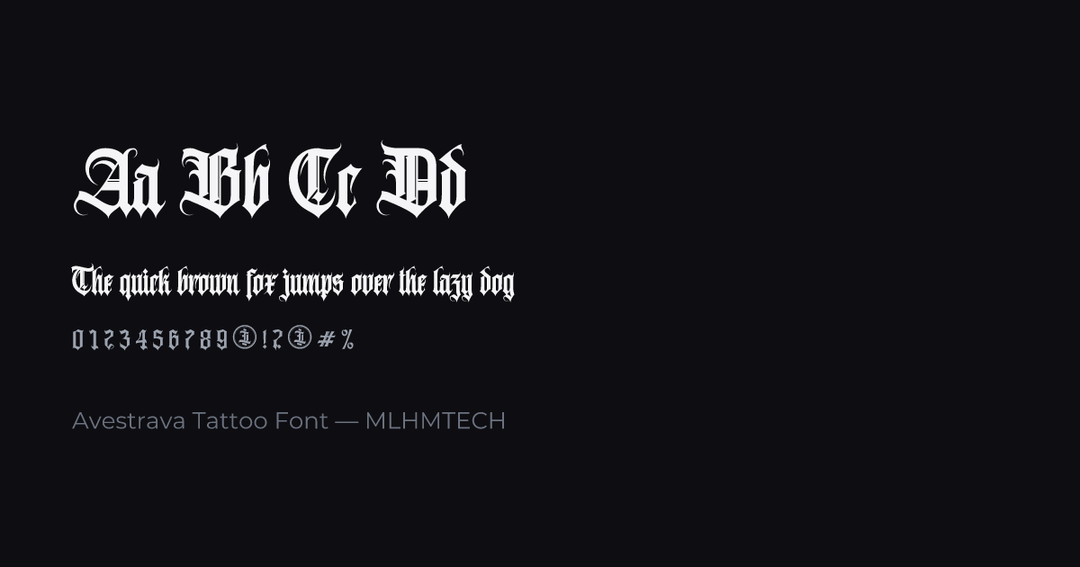
Avestrava Tattoo Font
Avestrava is a bold, hand-drawn tattoo-style font that adds an authentic ink feel to your designs. Perfect for logos, posters, and custom lettering.
Avestrava Tattoo Font captures the raw, artistic energy of hand-drawn lettering. Its irregular strokes and bold presence make it ideal for projects that need a rugged, personal touch. Whether you're designing a tattoo flash, a streetwear logo, or a poster, this font brings an authentic, inked aesthetic.